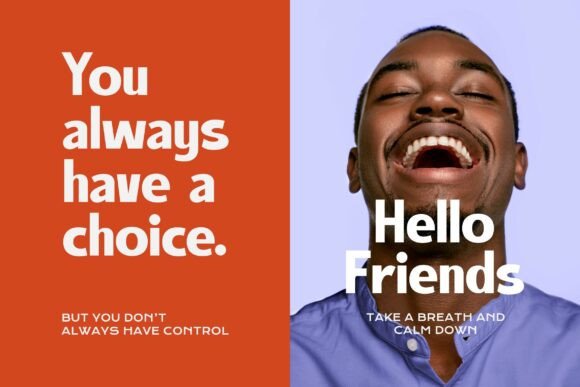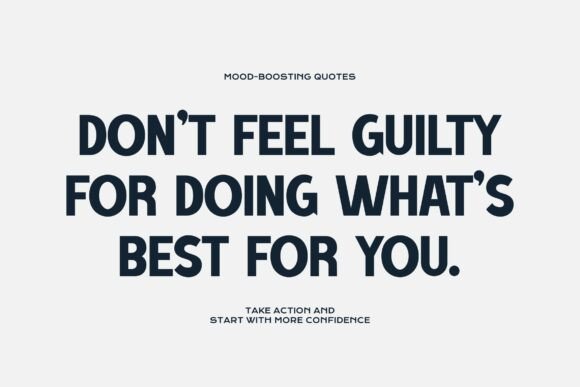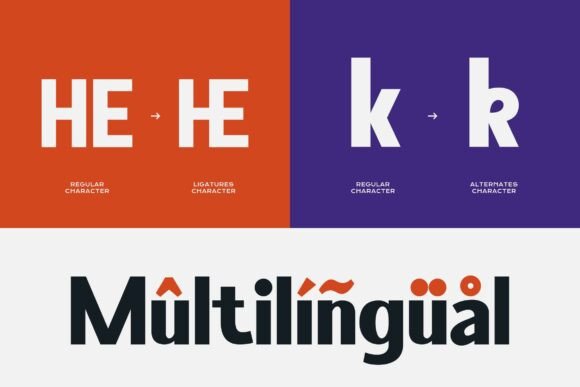
Introduction to Prodencial Font
Have you ever been working on a creative project, pouring your heart and soul into the design, only to realize that the font you’ve chosen is hindering the entire experience? The text becomes cluttered, and the overall aesthetic suffers. That’s where the right font can make all the difference. Enter Prodencial Font, a clean, modern sans-serif typeface that’s about to revolutionize the way you approach design.
With its bold, straightforward letterforms and balanced proportions, Prodencial Font is the perfect design resource for any project that demands clarity and modern style. Whether you’re working on a professional branding system, a digital interface, or a presentation, this font is sure to elevate your work. And the best part? It’s available for free download, making it an invaluable asset for designers of all levels.
Key Features of Prodencial Font
- Designed with a unique, modern aesthetic to elevate your design
Honest Review: Prodencial Font
As a designer, I’m always on the lookout for high-quality design resources to elevate my creative projects. Recently, I stumbled upon the Prodencial Font, and I’m excited to share my honest review with you.
Here are the things that work well for me: ✨
- High-quality typography: The Prodencial Font has a unique and stylish design that adds a touch of sophistication to any project.
However, there are a few limitations I’ve noticed: ⚠️
- Limited font sizes: While the font is beautiful, I wish there were more options for font sizes and styles to accommodate different design needs.
- Not suitable for all projects: The font’s unique style may not be suitable for every project or brand identity, so it’s essential to consider this before using it.
Overall, I’m impressed with the Prodencial Font, and I’d definitely recommend it to designers looking for a high-quality, stylish font for their creative projects. Just be aware of its limitations, and use it thoughtfully to get the best results.
Tips for Getting the Most Out of Prodencial Font
Use Prodencial Font in creative projects that require a unique and stylish touch. Experiment with different font sizes, colors, and combinations to achieve the desired effect.
Prodencial Font is ideal for use in logos, branding materials, and marketing campaigns. Its high-quality design and transparent background make it a versatile resource for various creative projects.